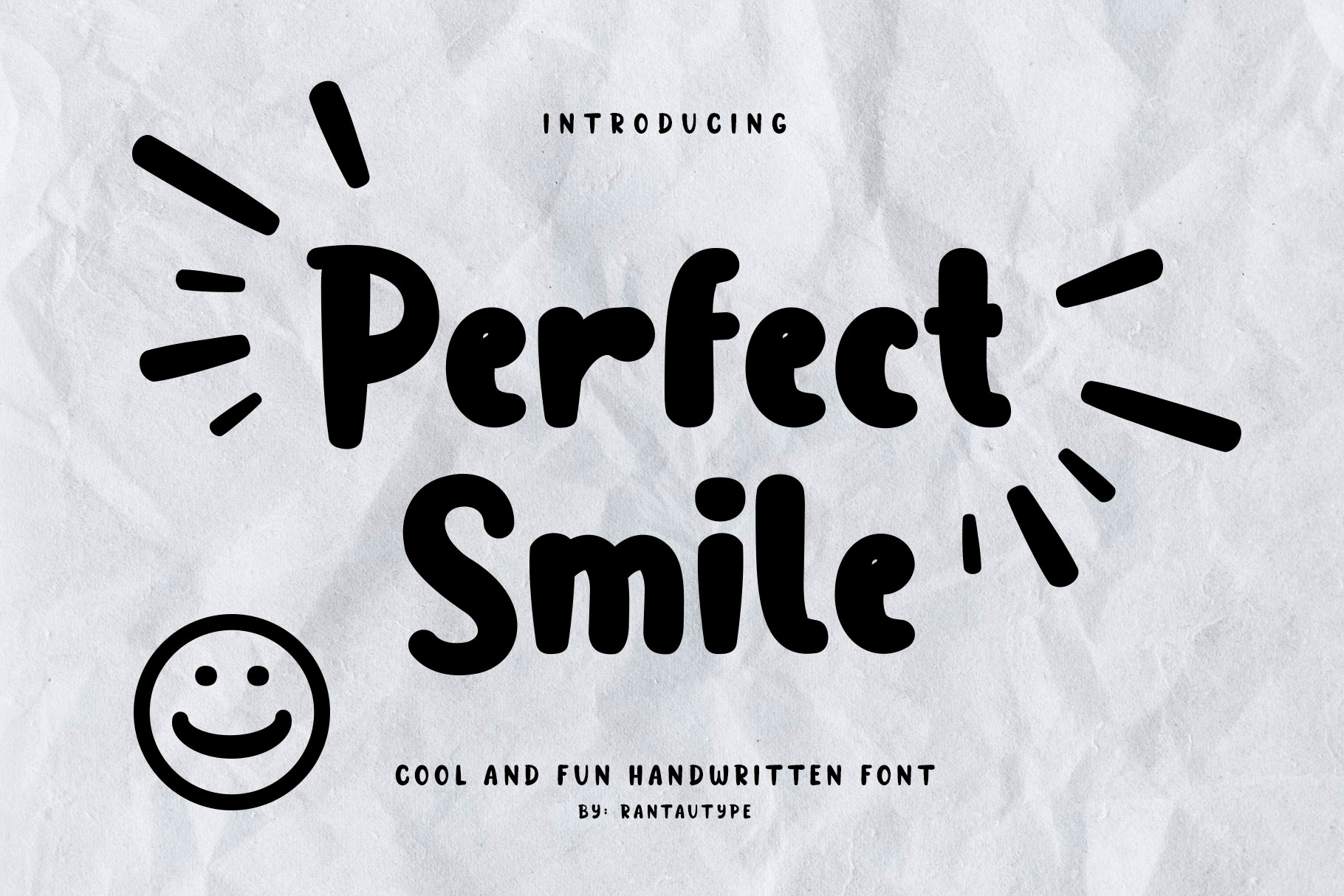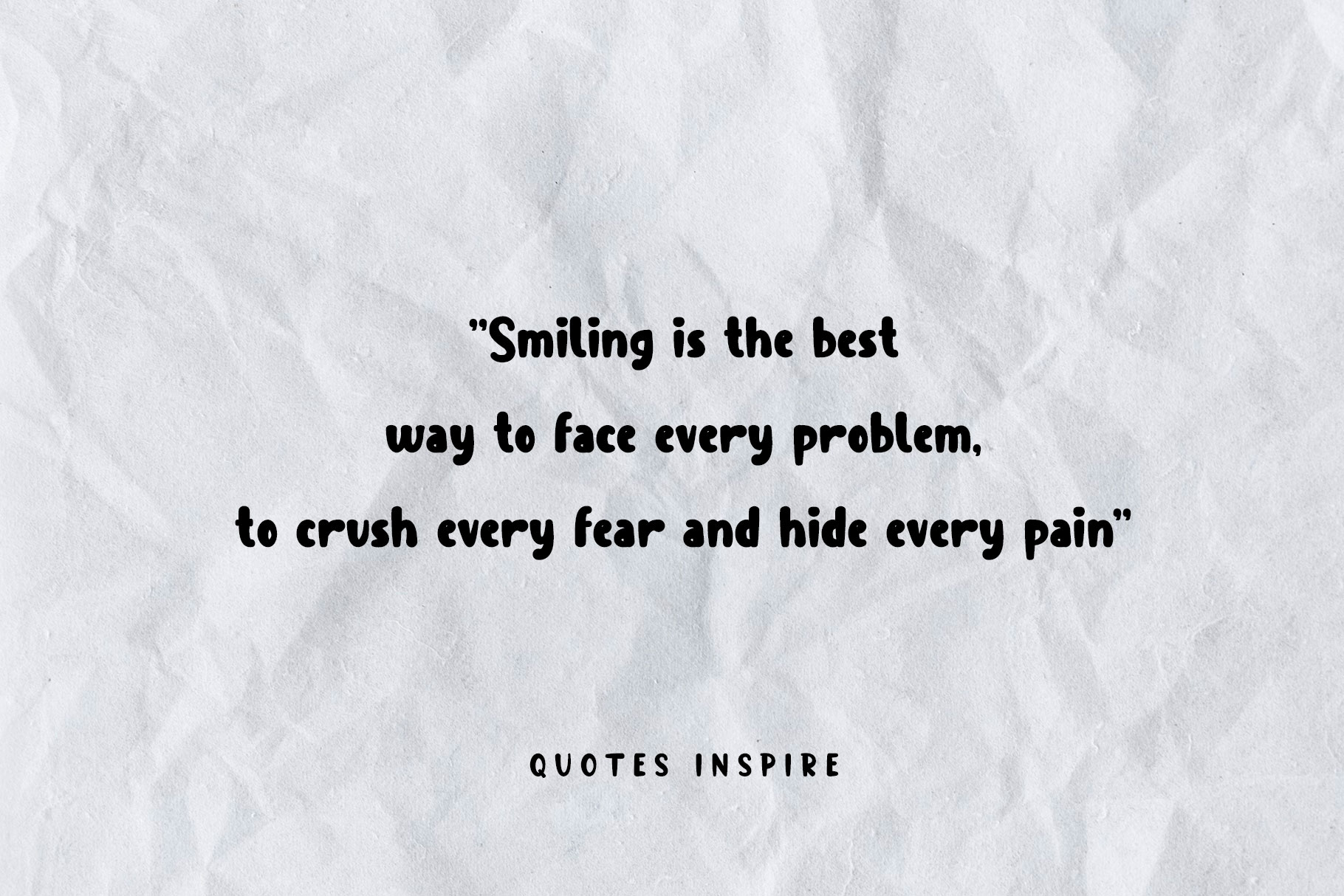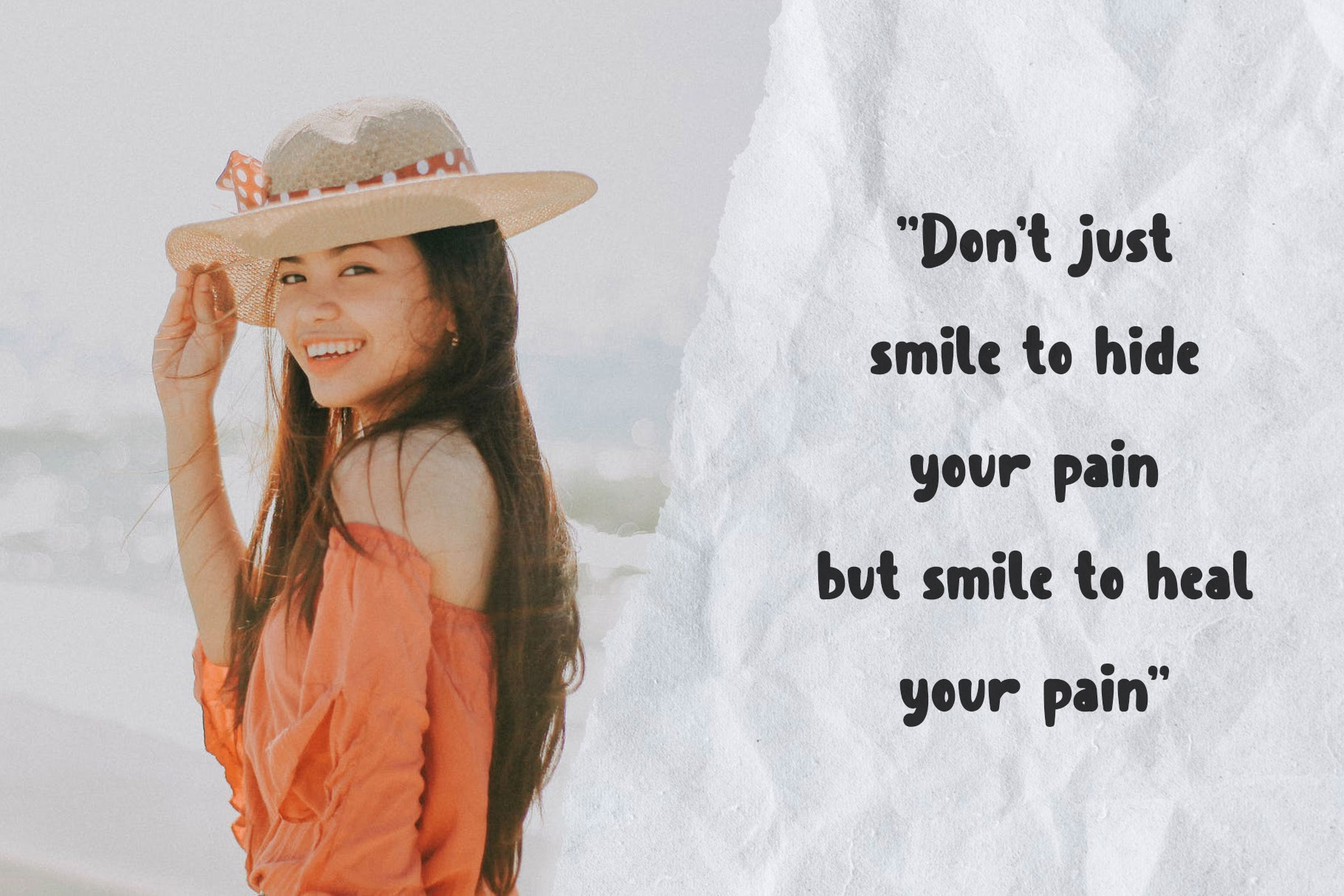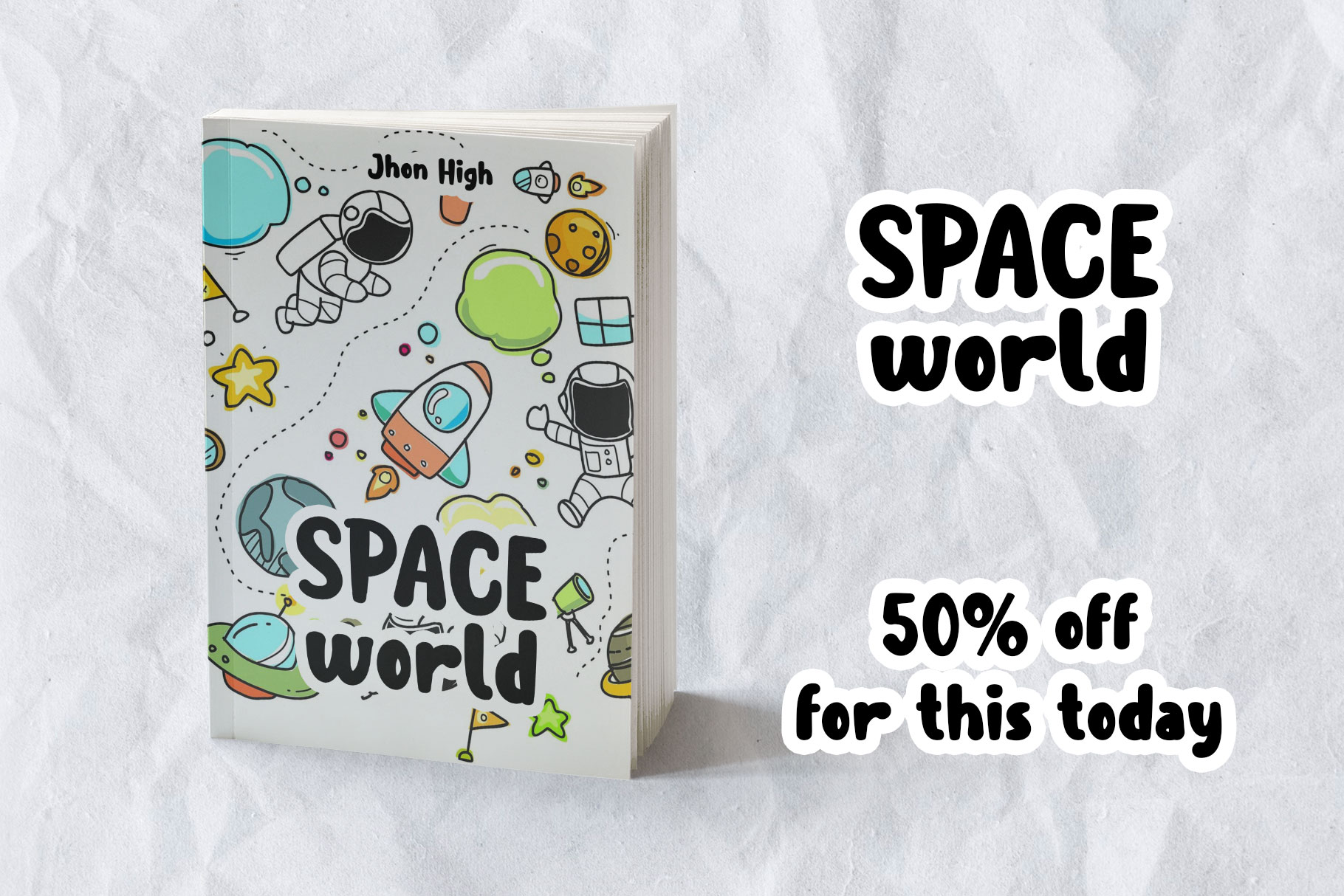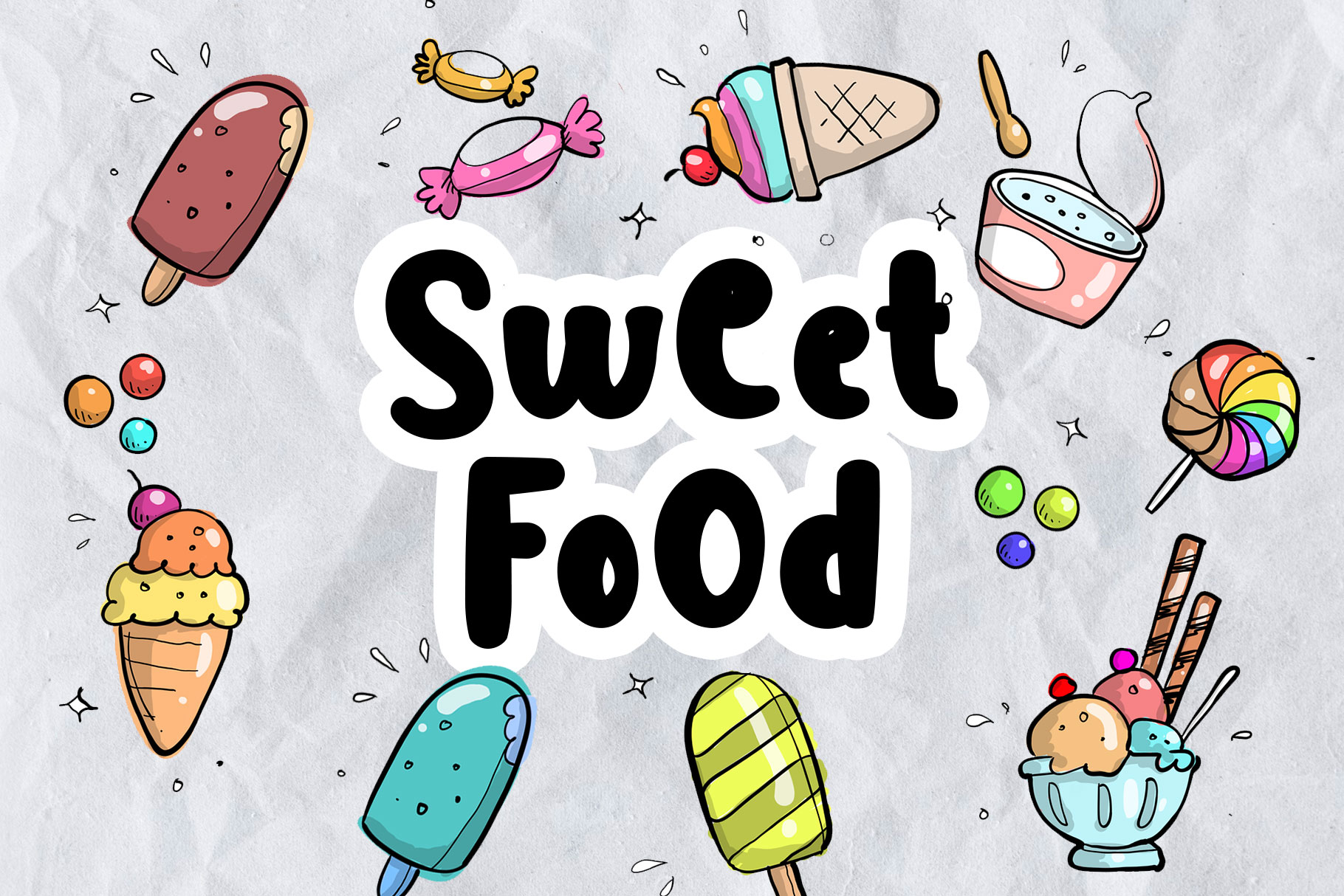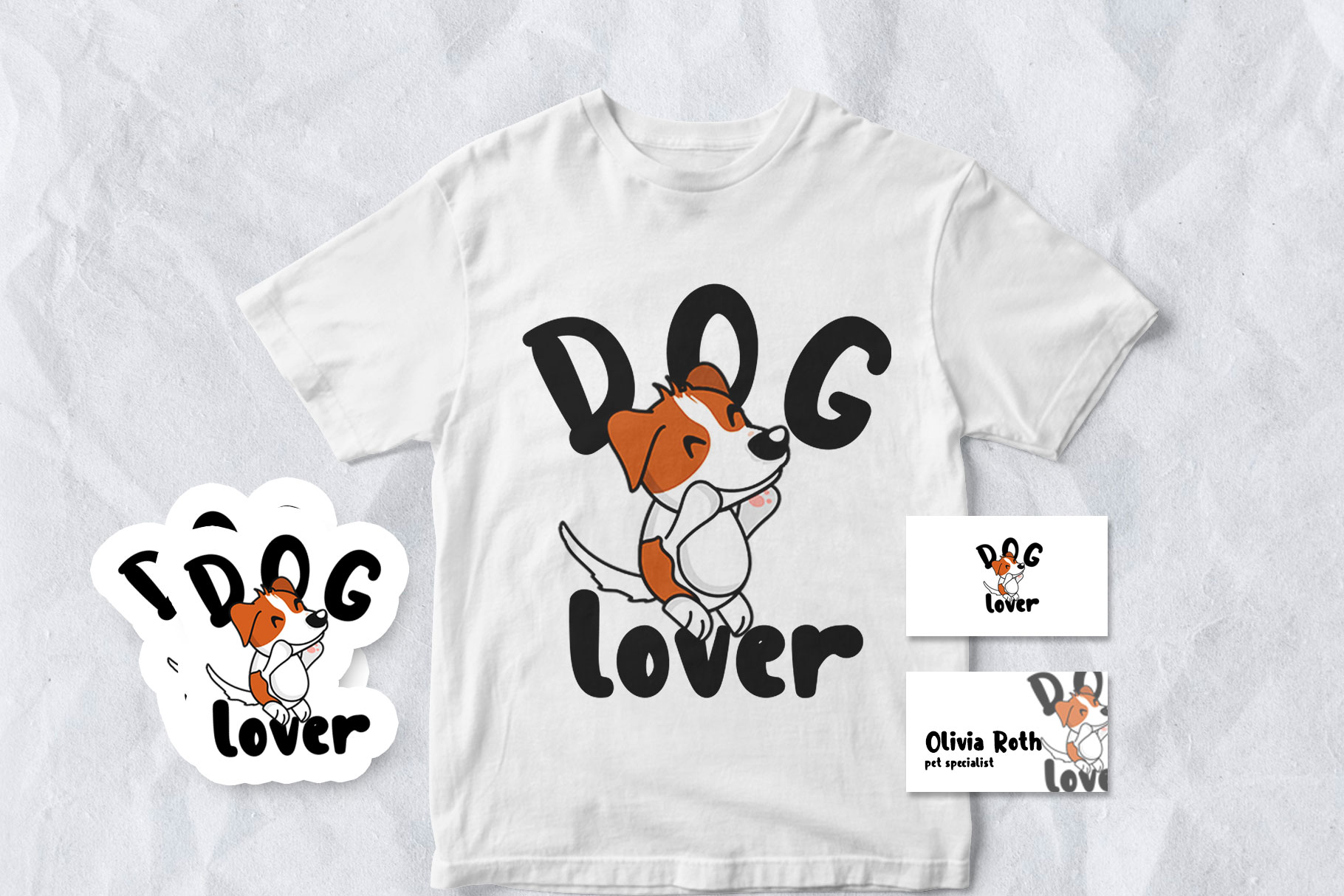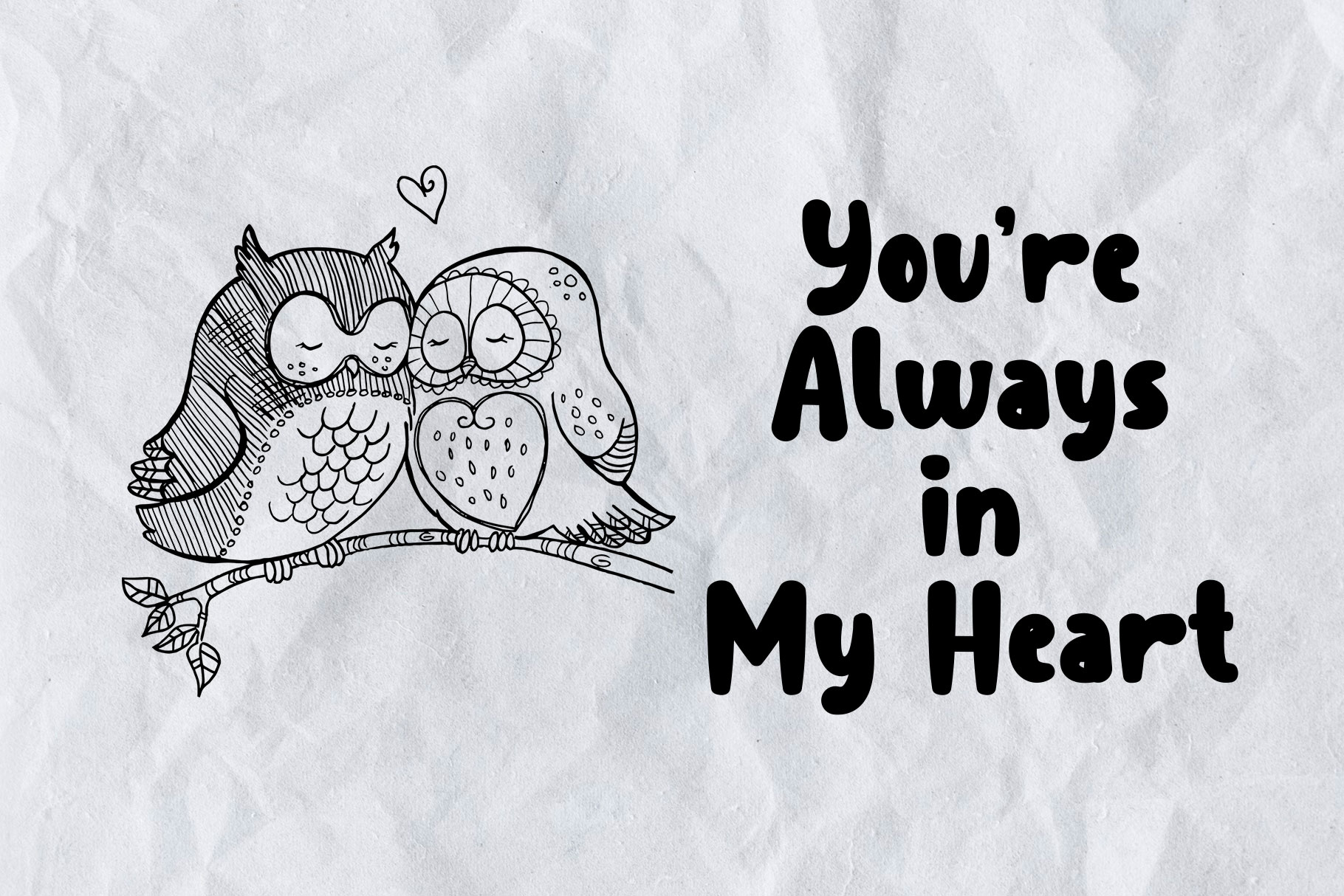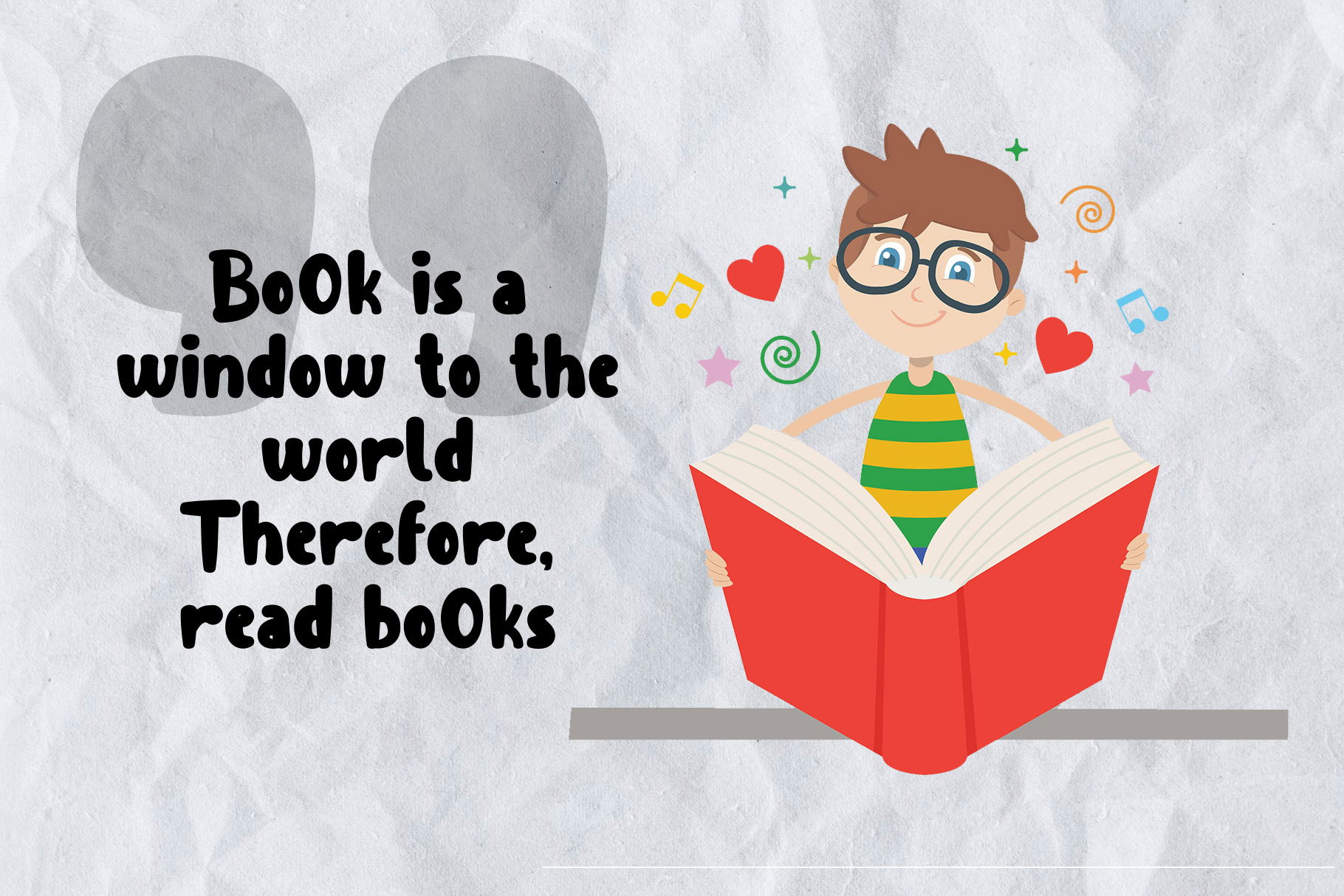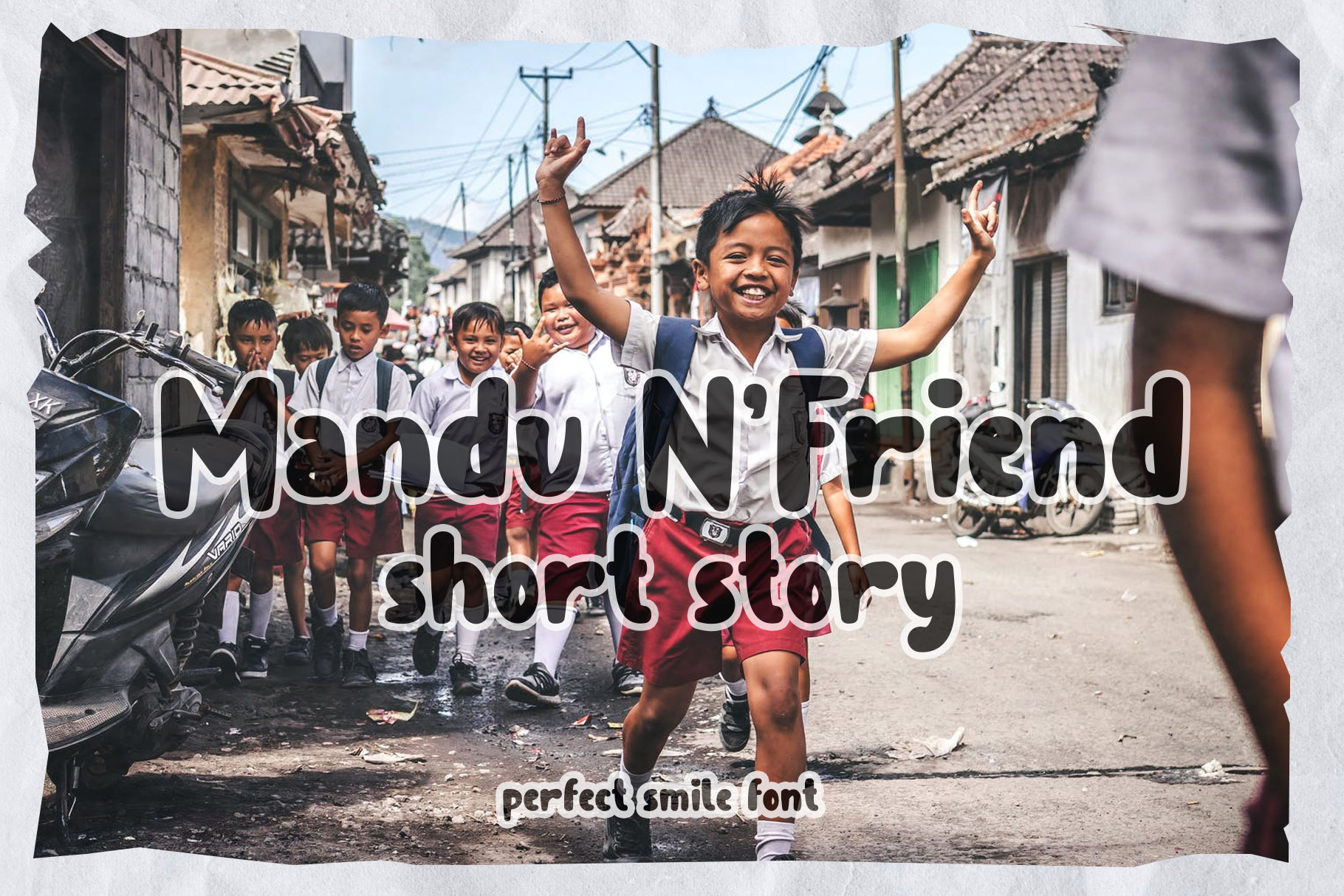
Perfect Smile Playfull font
Hallo, my name is Perfect Smile. I am a cool, fun and modernĀ  font. I would look perfect on creating designs targeted towards children but for this font suitable for any profect because the shape look modern. This font suitableĀ  for logos, packaging designs, posters, t-shirt, business card, quotes, books, etc. Let’s we go, to make you business go to next level with Perfect Smile.
• Standart Letter A-Z and a-z